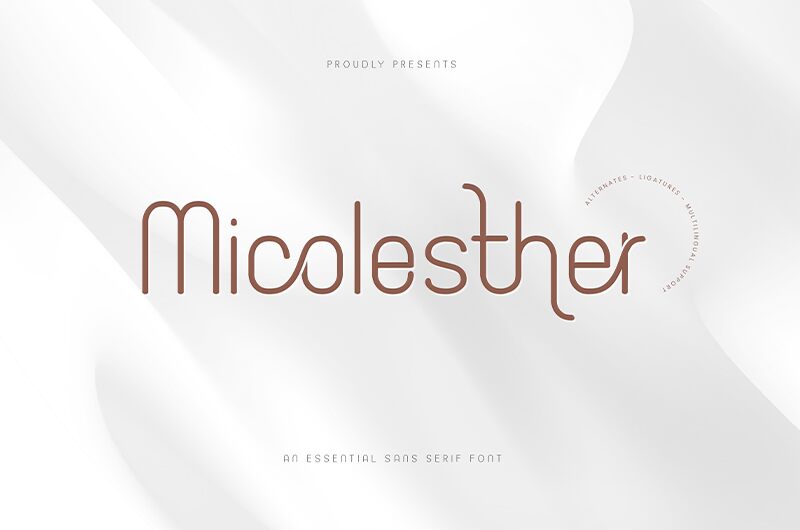
Micolesther is Modern Ligaturues Sans Serif Font with luxurious style. Available in 06 styles included alternates, ligatures and multilingual support.
Make it Simple but Have an Significant Impacts.